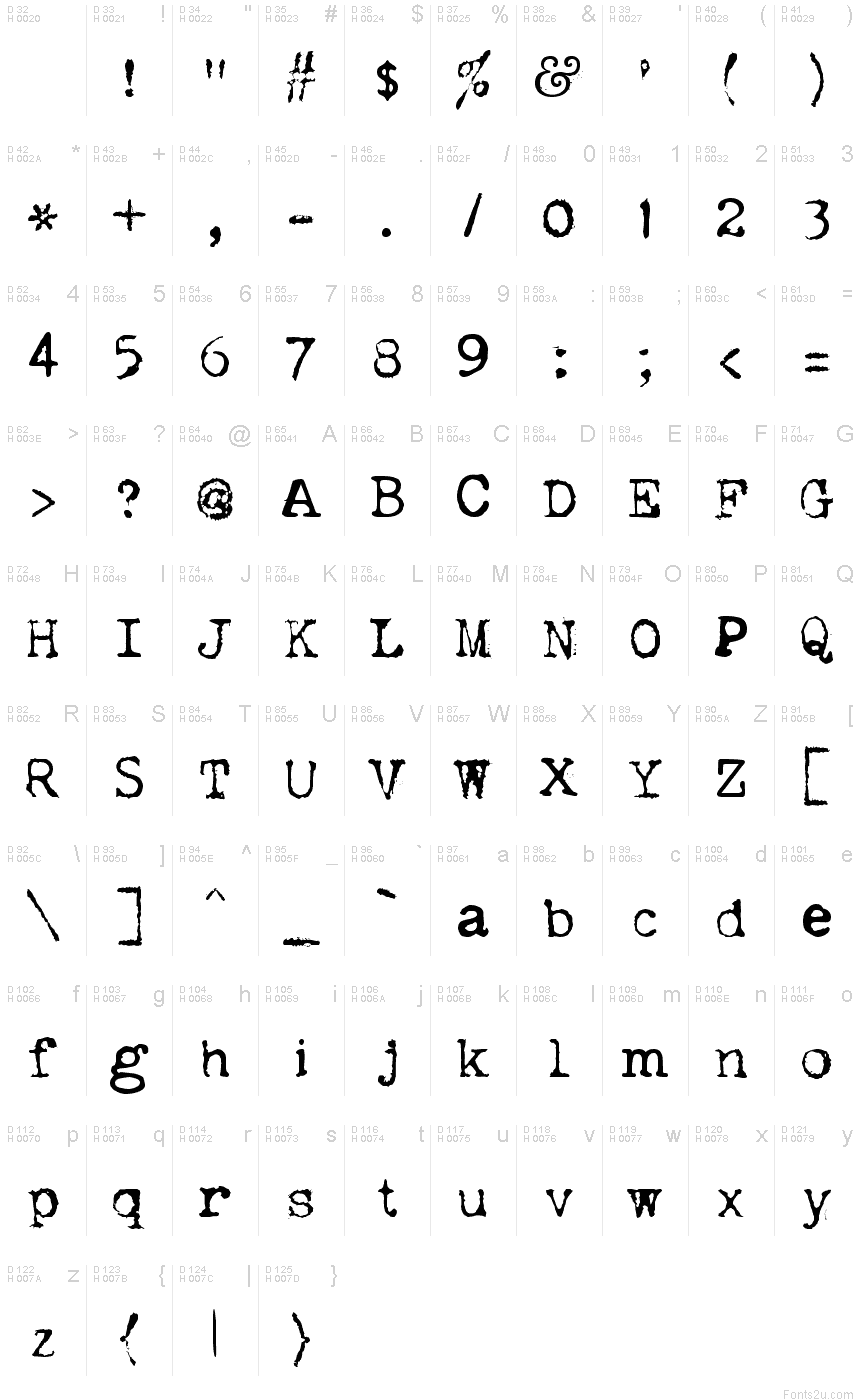
dislexiæ
Dislexiæ font by Iñaki Marquinez is a free eroded display typeface that looks like it’s been dragged through ink and left to dry in patches. The letters wobble and bleed at the edges, with irregular blobs and gaps that feel unsettling in a very deliberate way—grungy, anxious, and slightly chaotic. It has a scratchy, organic texture that instantly pushes anything you set in it toward the eerie and psychological.
Using Dislexiæ, you can dial up tension in horror posters, thriller book covers, escape room branding, experimental album art, zines, and edgy event flyers. This free font shines at larger sizes where its broken contours and inky craters can really be seen. Pair it with a clean, narrow sans serif for body text to keep layouts readable while the headlines do the disturbing.